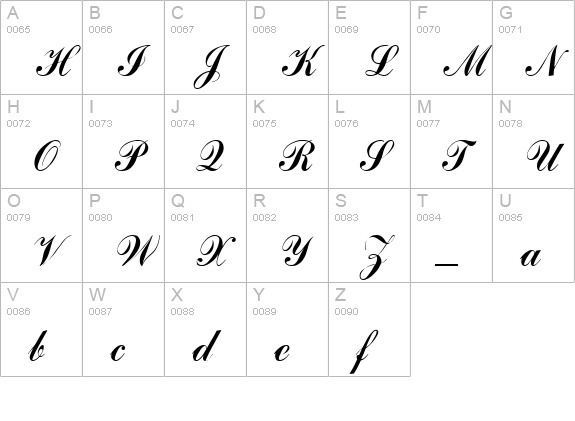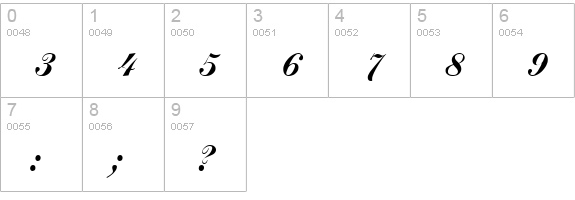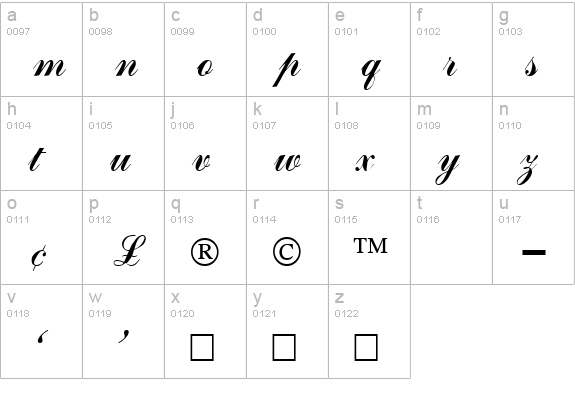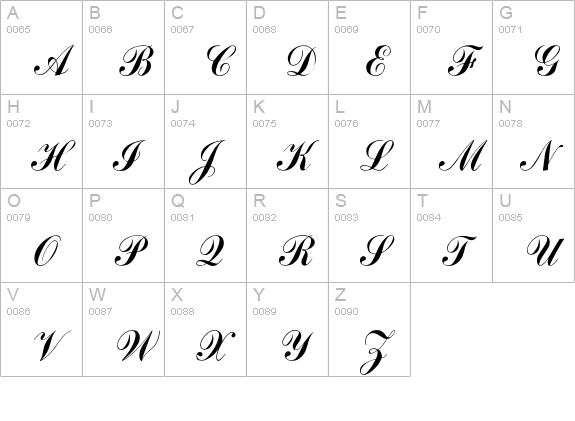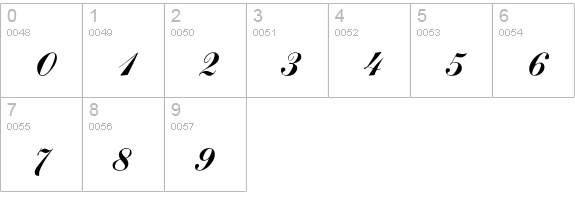
Author font is a stylish and elegant typeface that exudes sophistication and creativity. With its sleek lines and modern design, this font is perfect for adding a touch of class to any project. Whether you are working on a logo, branding materials, or a website design, Author font will help your text stand out and make a lasting impression. The best part is that Author font is completely free to download at FontsMarket.com. This means you can access this beautiful font without any cost, making it a valuable addition to your font collection. Don't miss out on the opportunity to enhance your designs with the timeless appeal of Author font – download it today and elevate your typography game!